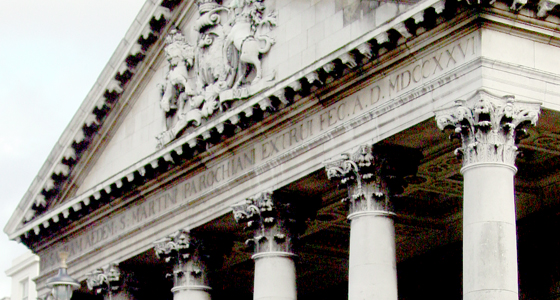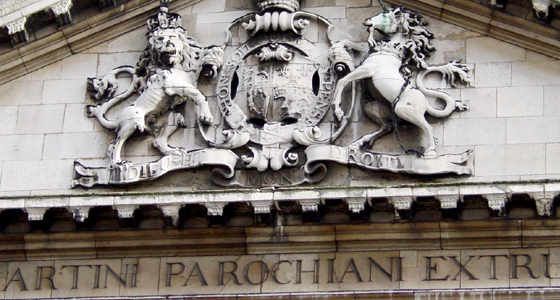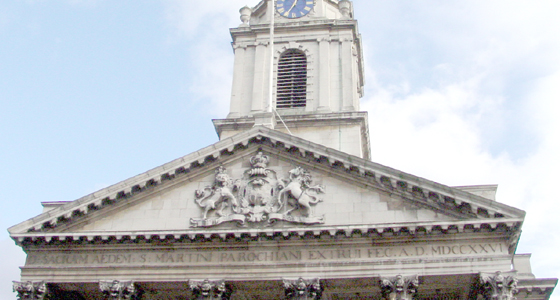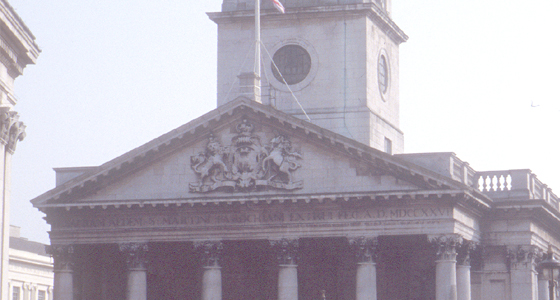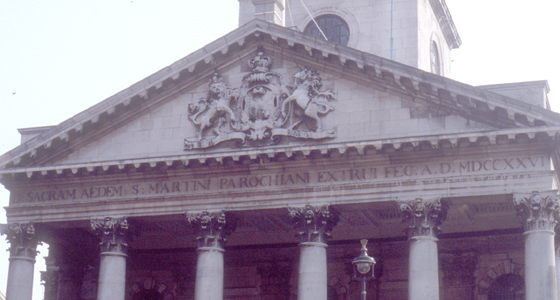
St Martin’s-in-the-Fields St Martin’s Place
This church was built between 1721–6 to the designs of James Gibbs. Lettering is carved across the pediment and dated 1722. This is lettering on its way somewhere. It does not follow the roman model, either in weight or in proportion, but it has not developed like the example at St Martin’s Schools into the English letter.
Nearly every letter is awkward: E with a stubby crossbar; X top-heavy; T too wide; R tail too thin; U with a flat bottom.
In the centre, below the main inscription is the name of the architect James Gibbs.